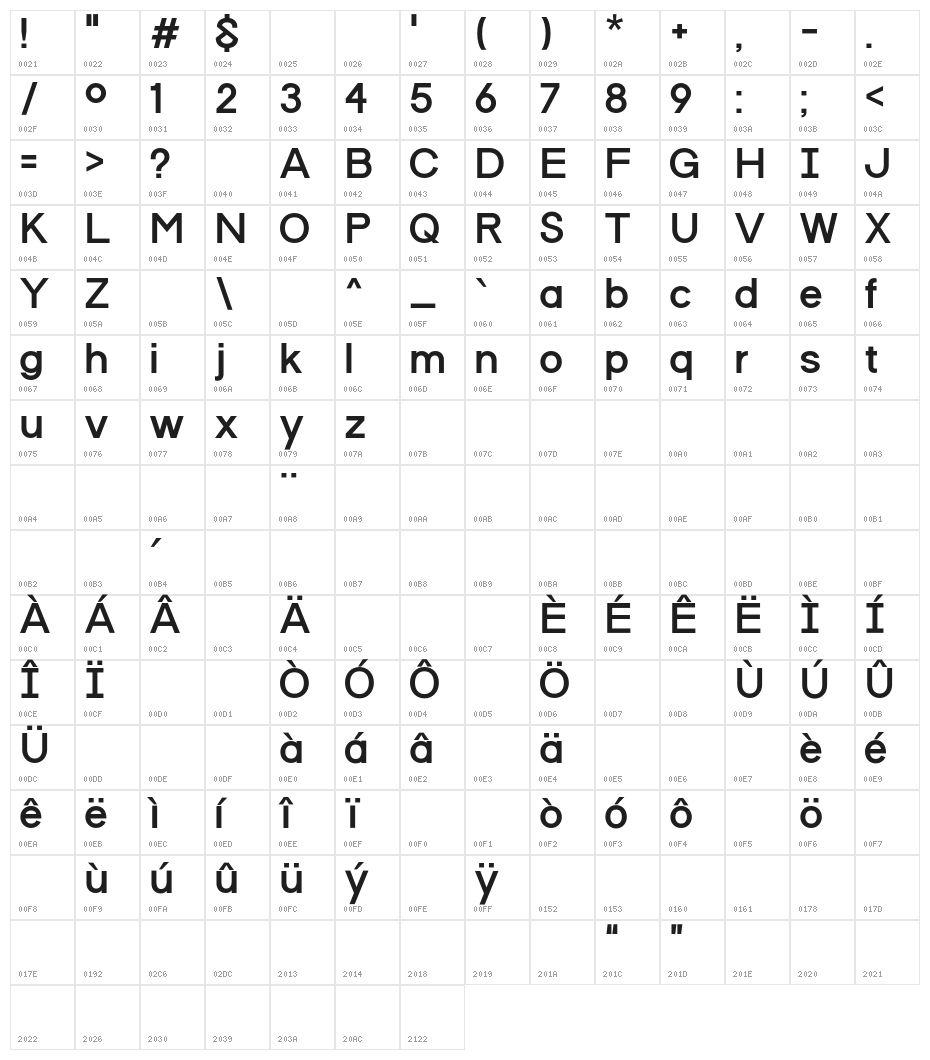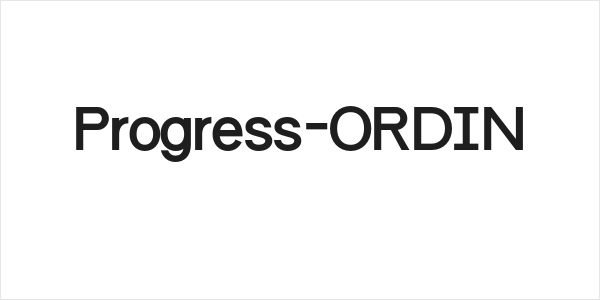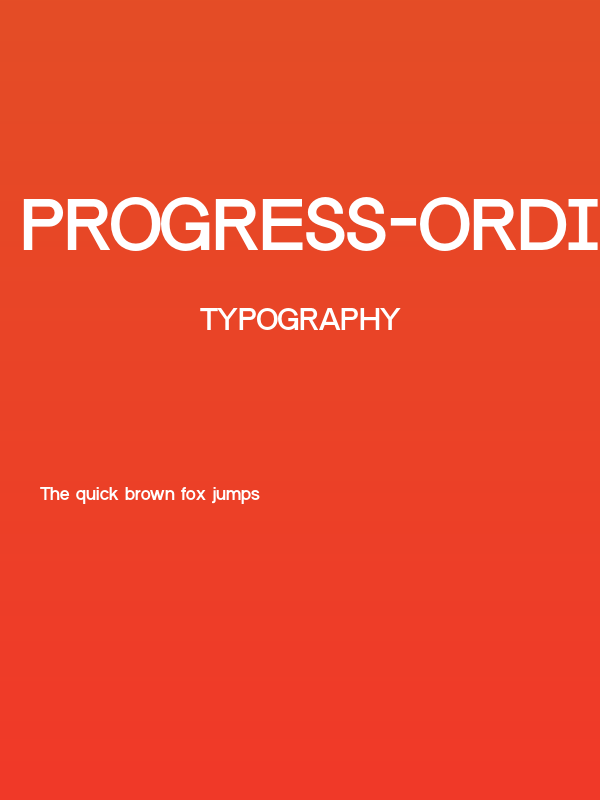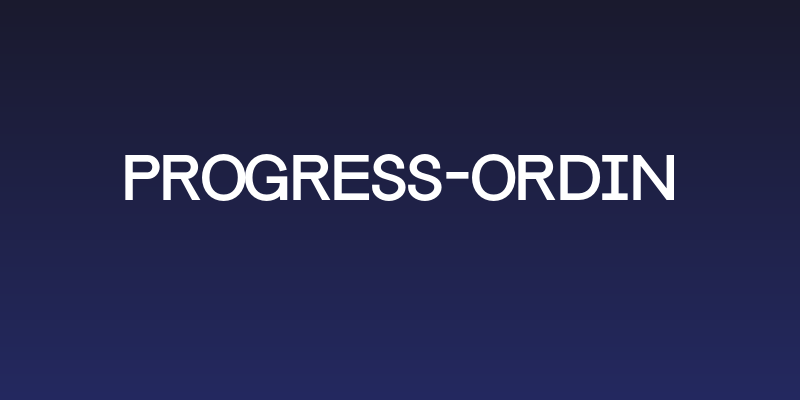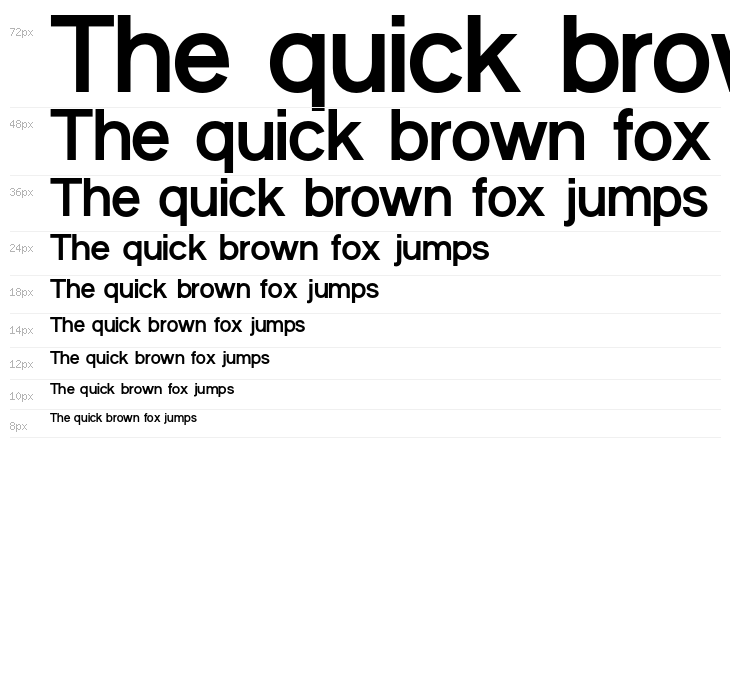
Progress-ORDIN Font
Progress-ORDIN Description
This font features a clean and modern sans-serif design, characterized by its uniform stroke width and geometric shapes. The uppercase letters are bold and assertive, while the lowercase letters maintain a consistent and harmonious flow. The numerals are clear and easily distinguishable, making them suitable for various applications. The special characters are well-integrated, maintaining the overall aesthetic of the typeface. This font's simplicity and clarity make it versatile for both digital and print media.
| Use Case | Headlines, Logos, Digital media |
| Proposed Projects | Ideal for branding, advertising, web design, and editorial use due to its clarity and modern appeal. |